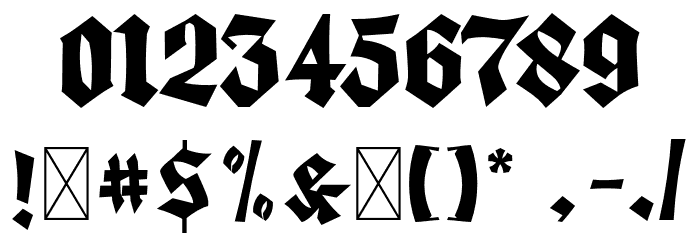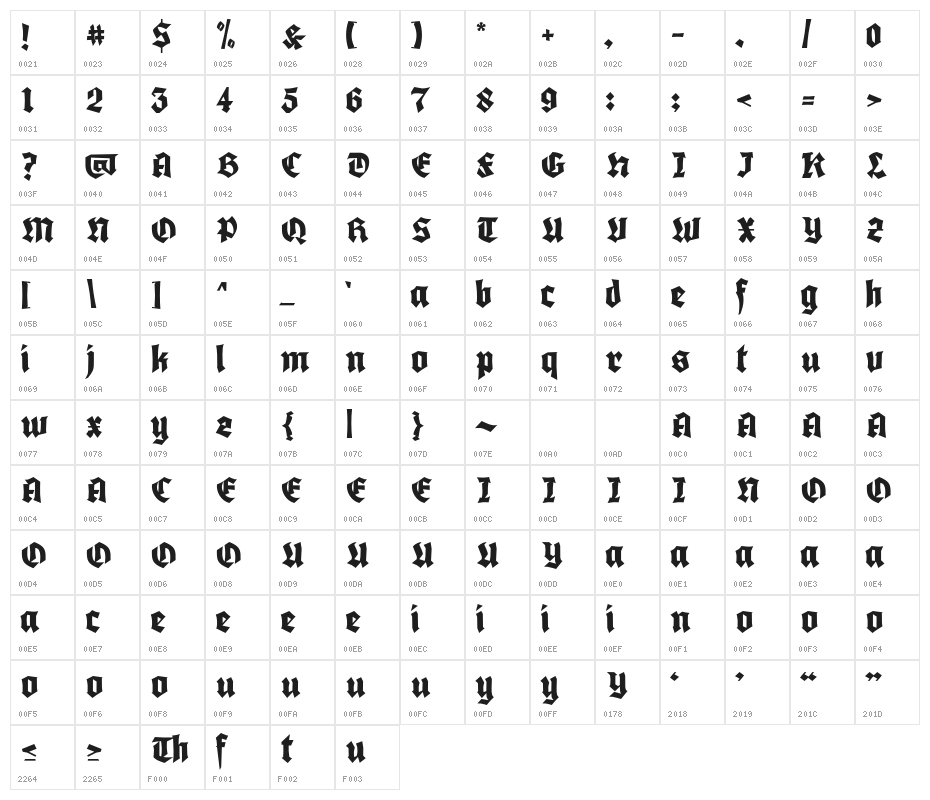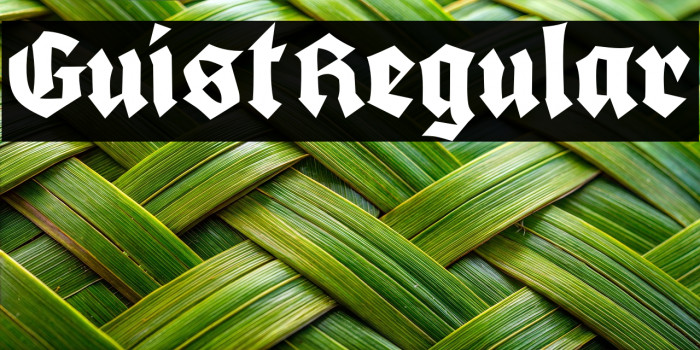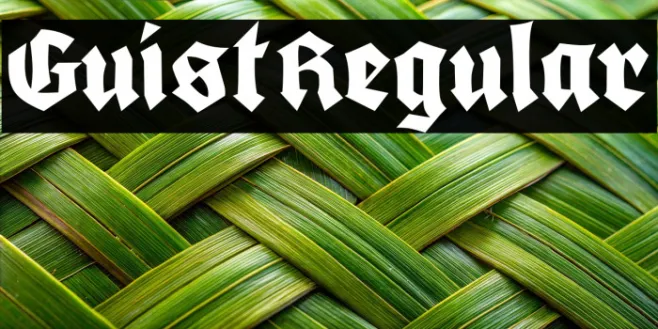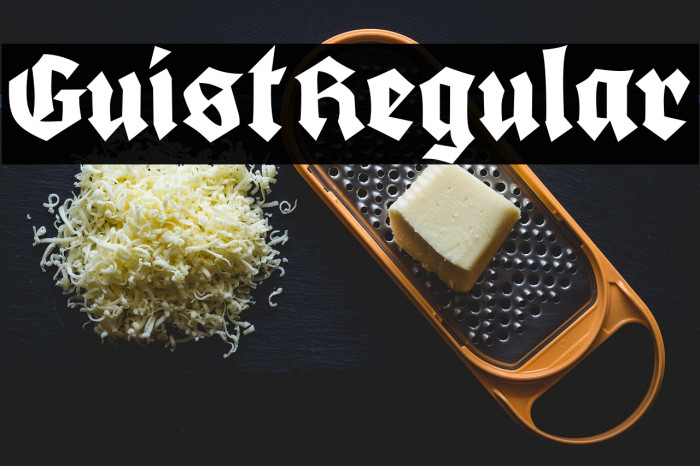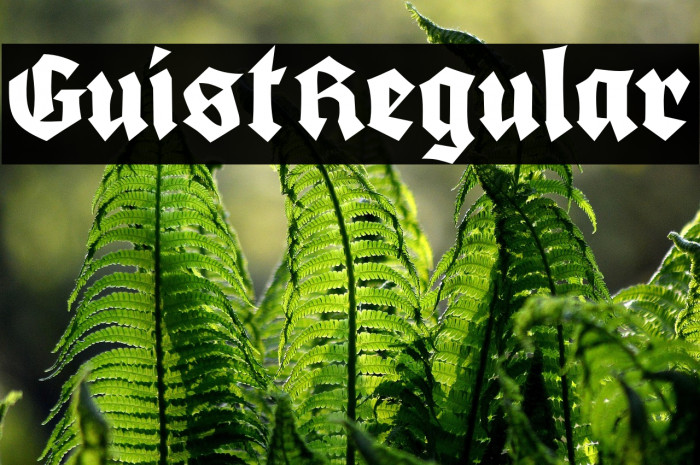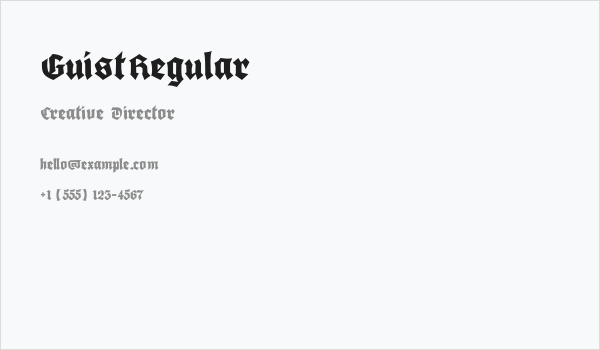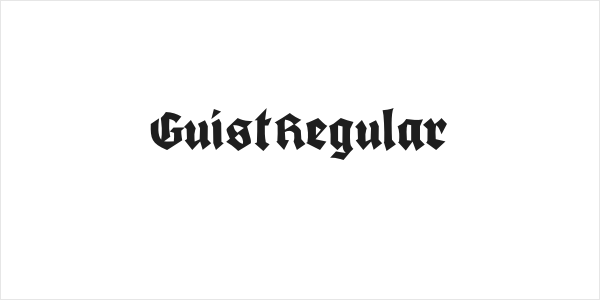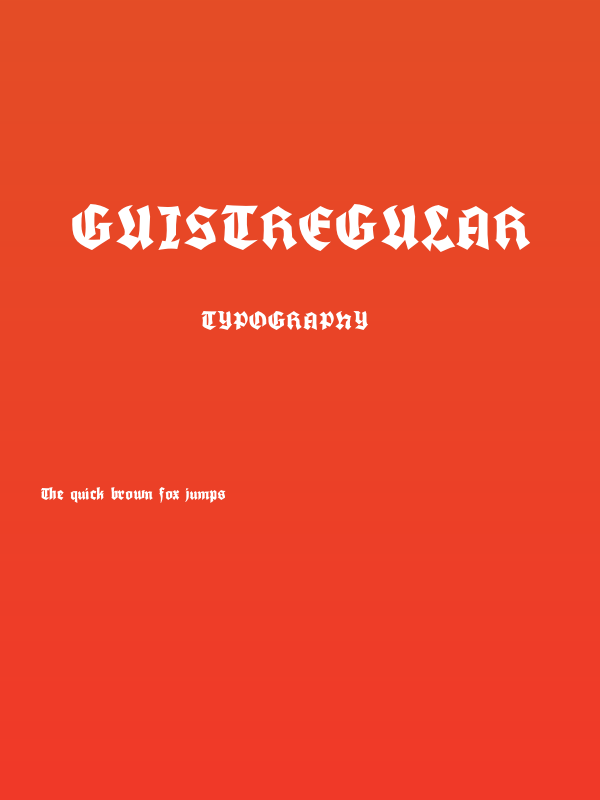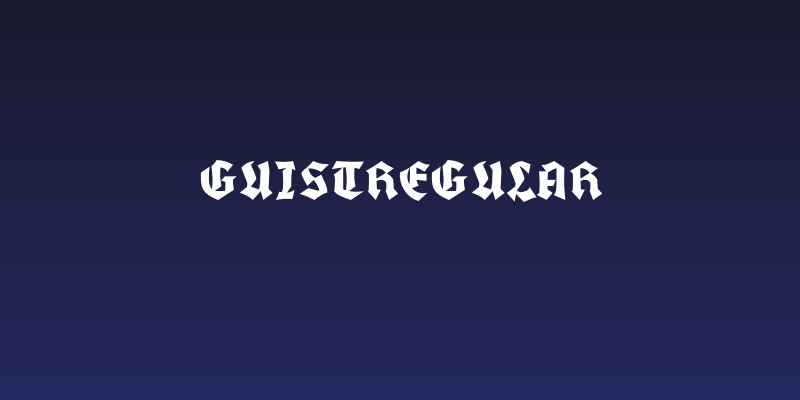
GuistRegular Font
GuistRegular Description
This font features a bold and striking blackletter style, characterized by its sharp, angular lines and intricate detailing. It evokes a sense of tradition and history, reminiscent of medieval manuscripts and Gothic architecture. The uppercase letters are particularly ornate, with elaborate serifs and flourishes that add to its decorative appeal. The lowercase letters maintain the same level of detail, ensuring consistency throughout the typeface. Numbers and special characters are equally stylized, making this font suitable for projects that require a dramatic and historical aesthetic.